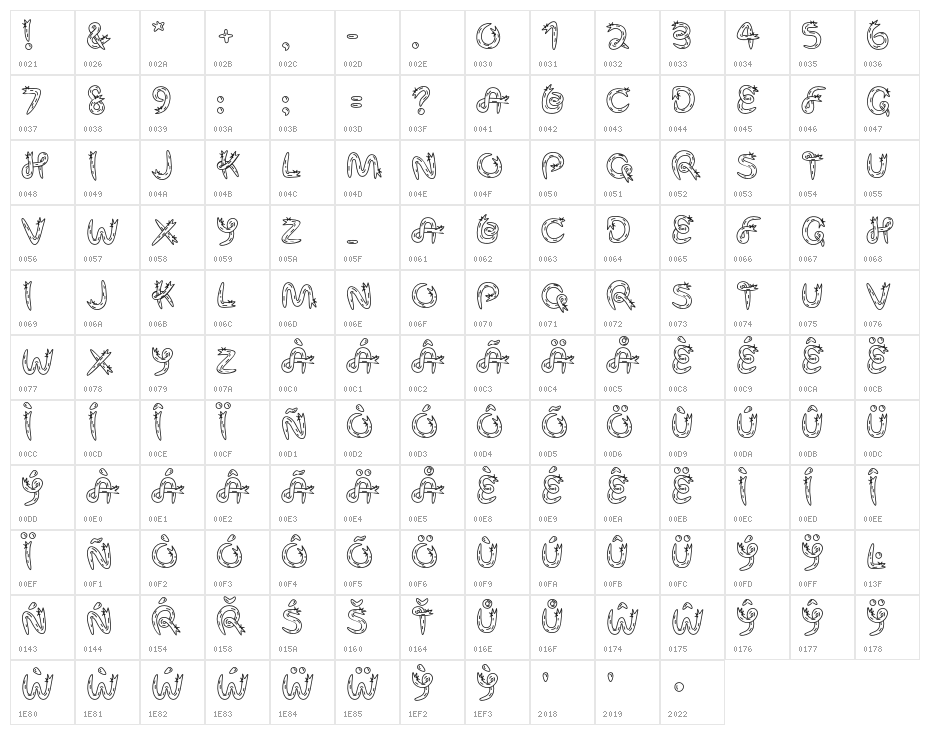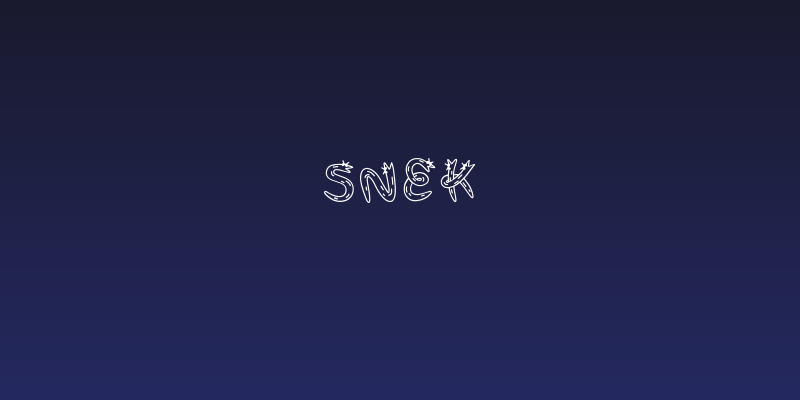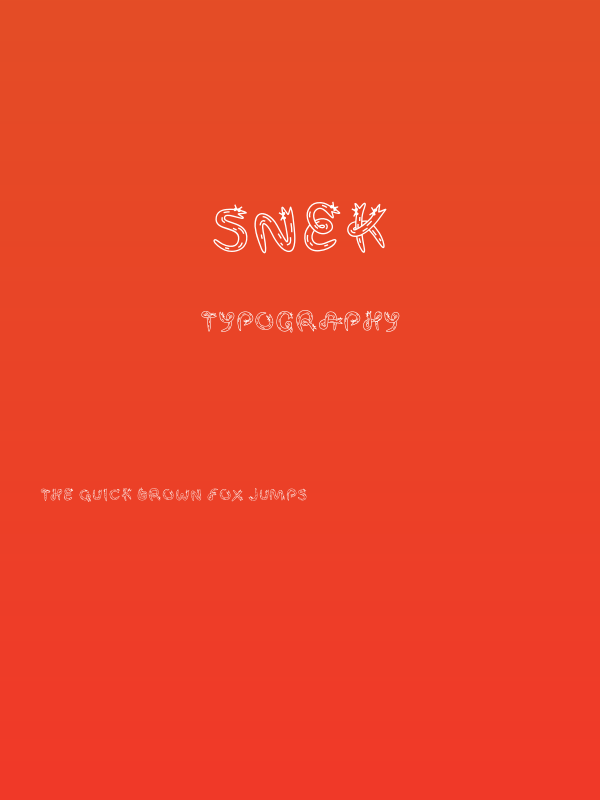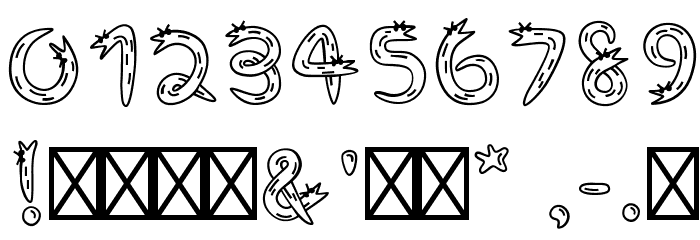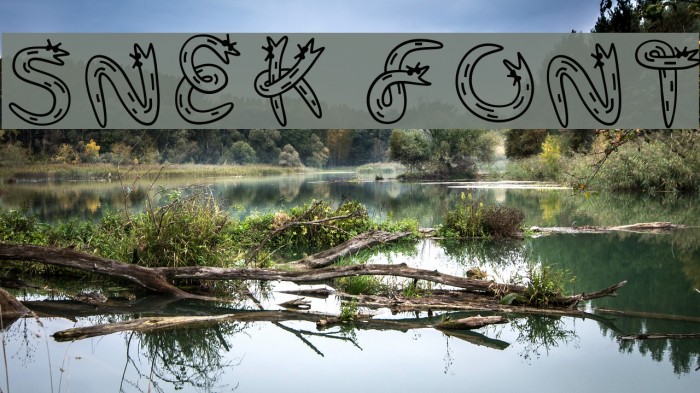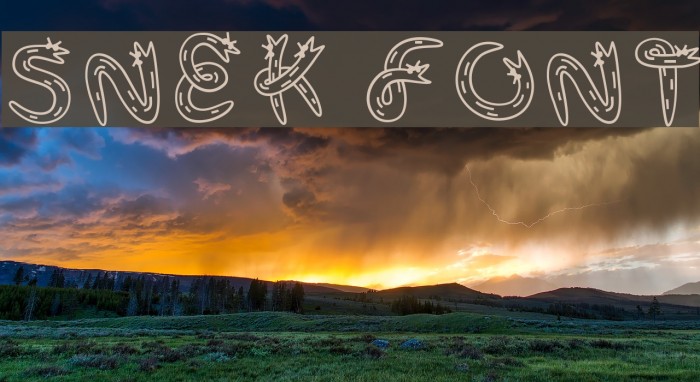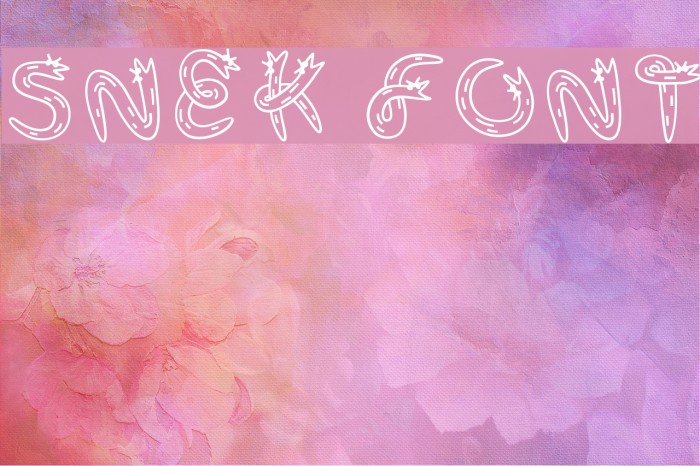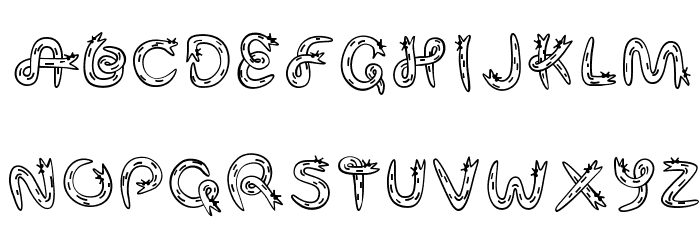
Snek Font
Snek Description
This playful and whimsical font features characters designed to resemble snakes, with each letter and number incorporating serpentine elements such as curves and pointed tails. The font is highly decorative, with a unique style that makes it stand out. The characters are bold and have a consistent thickness, giving them a strong presence on the page. The design is intricate, with each character having a distinct personality, making it ideal for creative and fun projects. The font is not suitable for body text due to its decorative nature but excels in capturing attention in headlines or logos.
| Proposed Projects | Ideal for children's book covers, playful branding, themed event invitations, or any project requiring a fun and eye-catching typeface. |